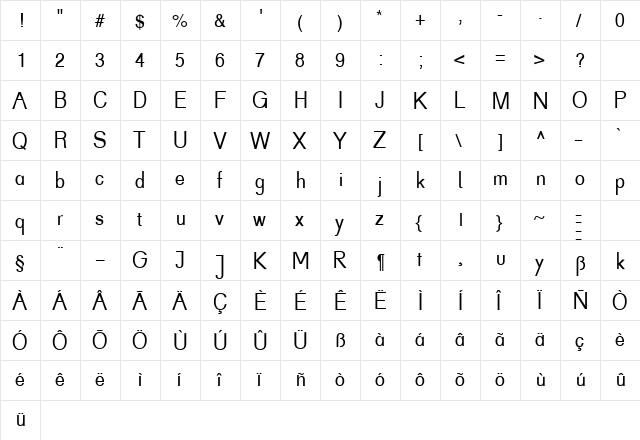
DR HH El Normal
Design Context for DR HH El Typeface
DR HH El takes a measured approach to typography — its balanced proportions and neutral character make it a reliable workhorse for both digital and print work.